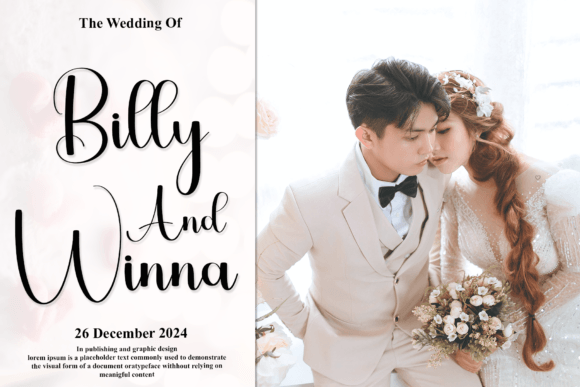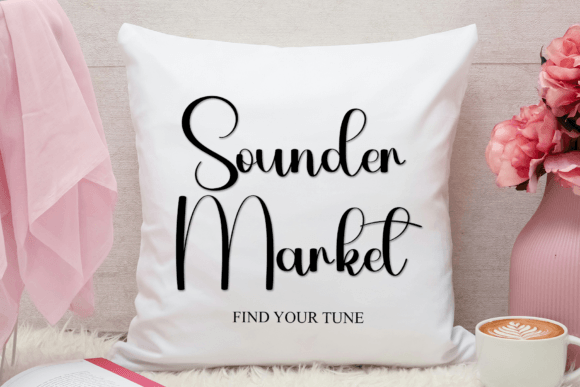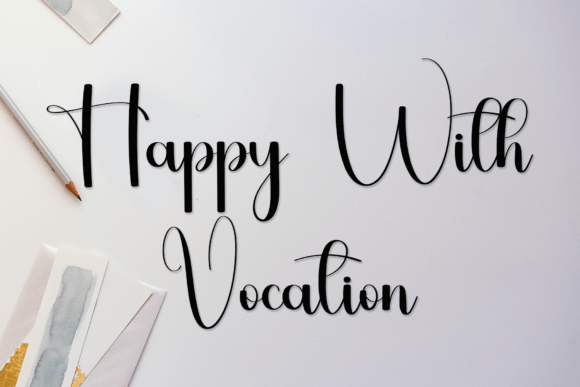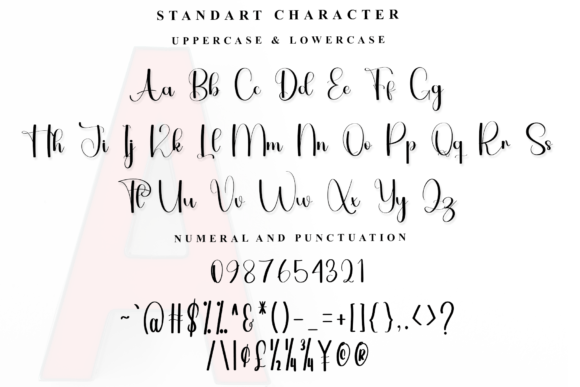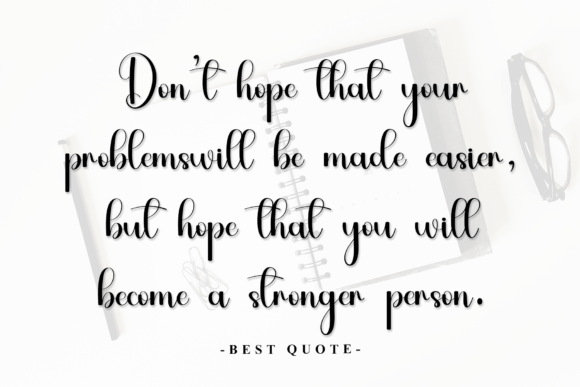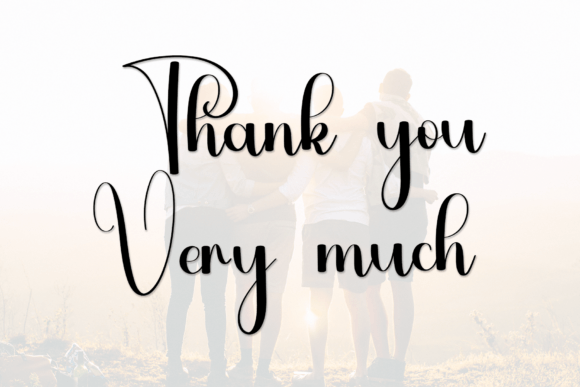
Introducing Father Font: Elevate Your Designs with Elegance and Flair
Are you on the hunt for a font that exudes sophistication, elegance, and a touch of refinement? Look no further than Father Font, a delicate and flowing display font that is sure to take your designs to the next level. With its beautifully balanced characters and versatile nature, Father Font is the perfect addition to any creative project.
The Characteristics of Father Font
Father Font boasts a range of characteristics that make it an exceptional choice for designers and crafters. Its delicate and elegant design ensures that it can be used in a variety of contexts, from luxury branding and high-end packaging to wedding invitations and digital displays. The font’s flowing lines and curves create a sense of movement and fluidity, adding a touch of dynamism to any design.
Beautifully Balanced Characters
One of the standout features of Father Font is its beautifully balanced characters. Each letter has been carefully crafted to ensure that it looks stunning on its own and in combination with other characters. This balance is crucial, as it allows the font to be used in a wide range of design applications, from short headlines to longer blocks of text.
A Wide Pool of Design Possibilities
Father Font’s versatility is one of its greatest strengths. It can be used in a wide range of design applications, including:
- Luxury branding and packaging
- Digital displays and signage
- Magazines and editorial design
Whether you’re working on a high-end branding project or a more creative design venture, Father Font is sure to match your needs and exceed your expectations.
PUA Coded for Easy Access to Glyphs and Ligatures
Father Font is PUA (Private Use Area) coded, which means that you can easily access all the amazing glyphs and ligatures. This feature makes it simple to add an extra layer of creativity and sophistication to your designs. With PUA coding, you can:
- Easily access and use glyphs and ligatures
- Create unique and custom typography
- Add an extra layer of creativity to your designs
Bring Your Ideas to Life with Father Font
Father Font is more than just a font – it’s a design solution that can help bring your ideas to life. Its elegant and flowing design makes it perfect for adding a touch of sophistication and refinement to any project. Whether you’re a designer, crafter, or DIY enthusiast, Father Font is sure to inspire and elevate your work.
Tips for Using Father Font
To get the most out of Father Font, here are a few tips to keep in mind:
- Use it as a display font to add emphasis and elegance to your designs
- Pair it with other fonts to create a unique and visually appealing typography
- Don’t be afraid to get creative and try new things – Father Font is a versatile font that can handle a range of design applications
In conclusion, Father Font is an exceptional display font that offers a range of benefits and design possibilities. Its delicate and elegant design, beautifully balanced characters, and PUA coding make it a versatile and sophisticated font that can elevate any design project. Whether you’re a designer, crafter, or DIY enthusiast, Father Font is sure to inspire and bring your ideas to life.